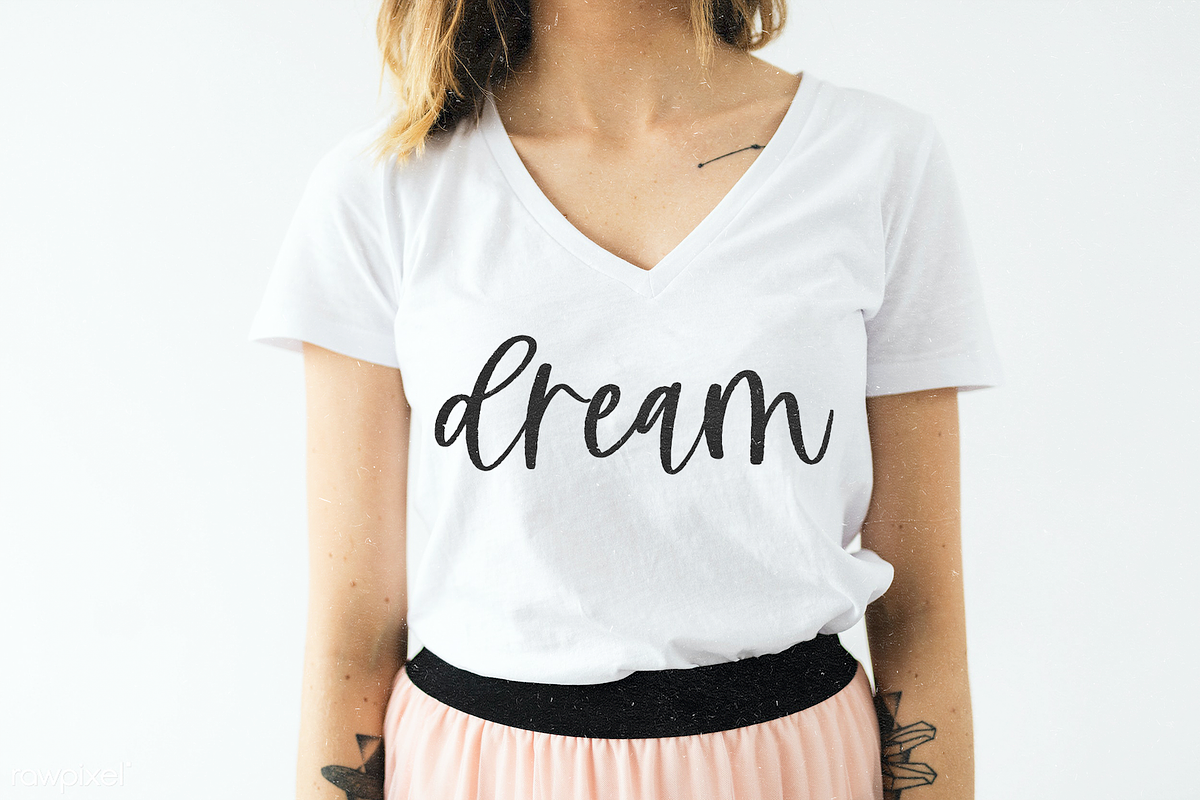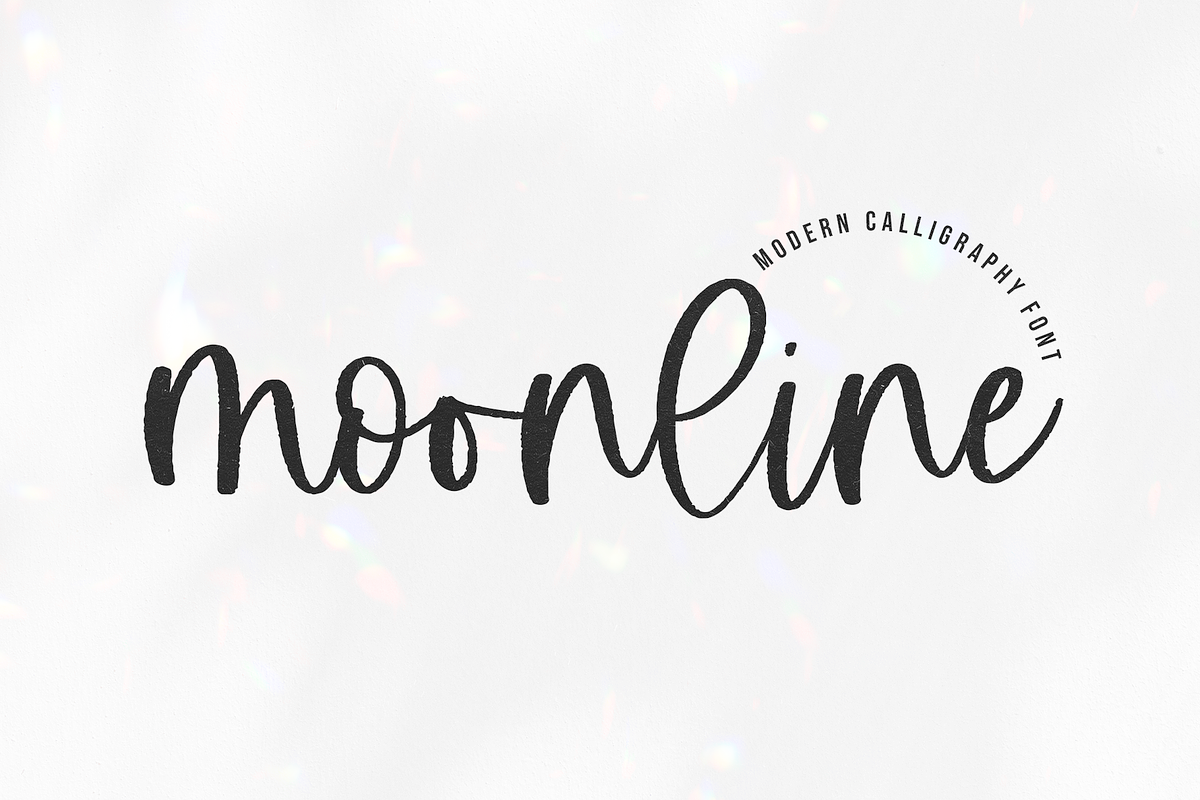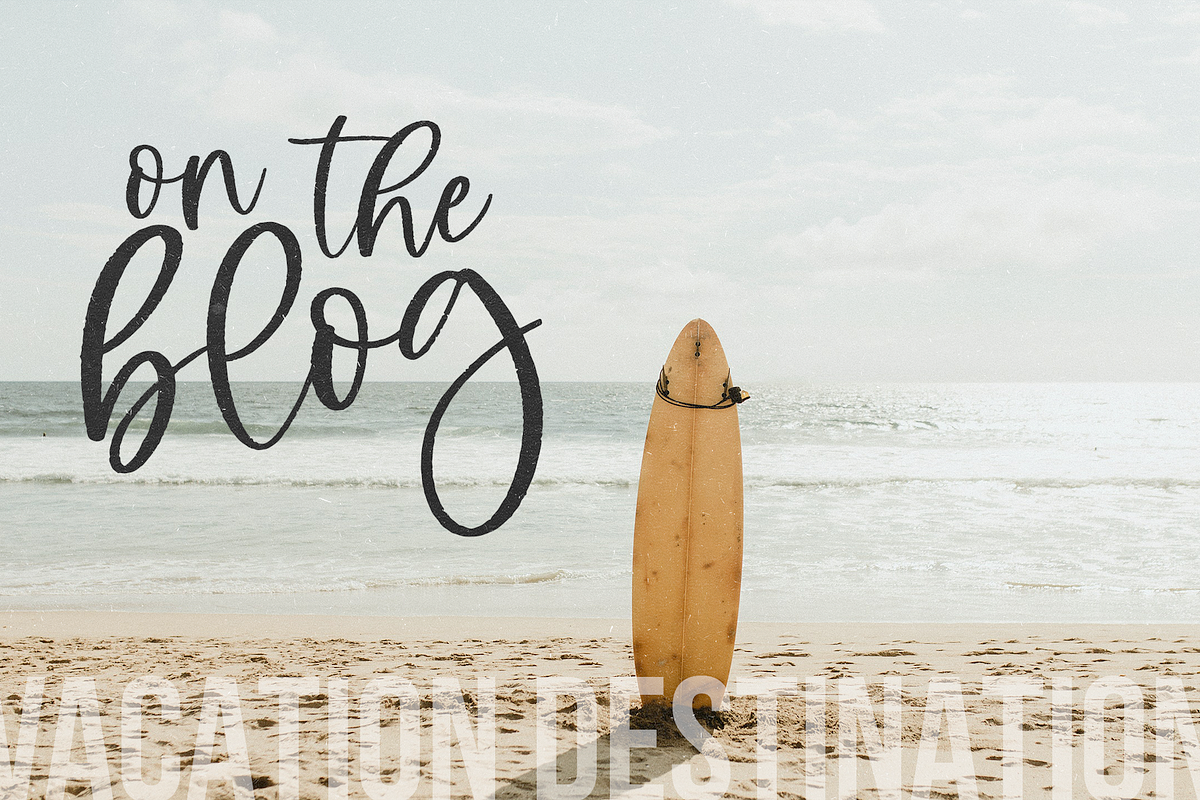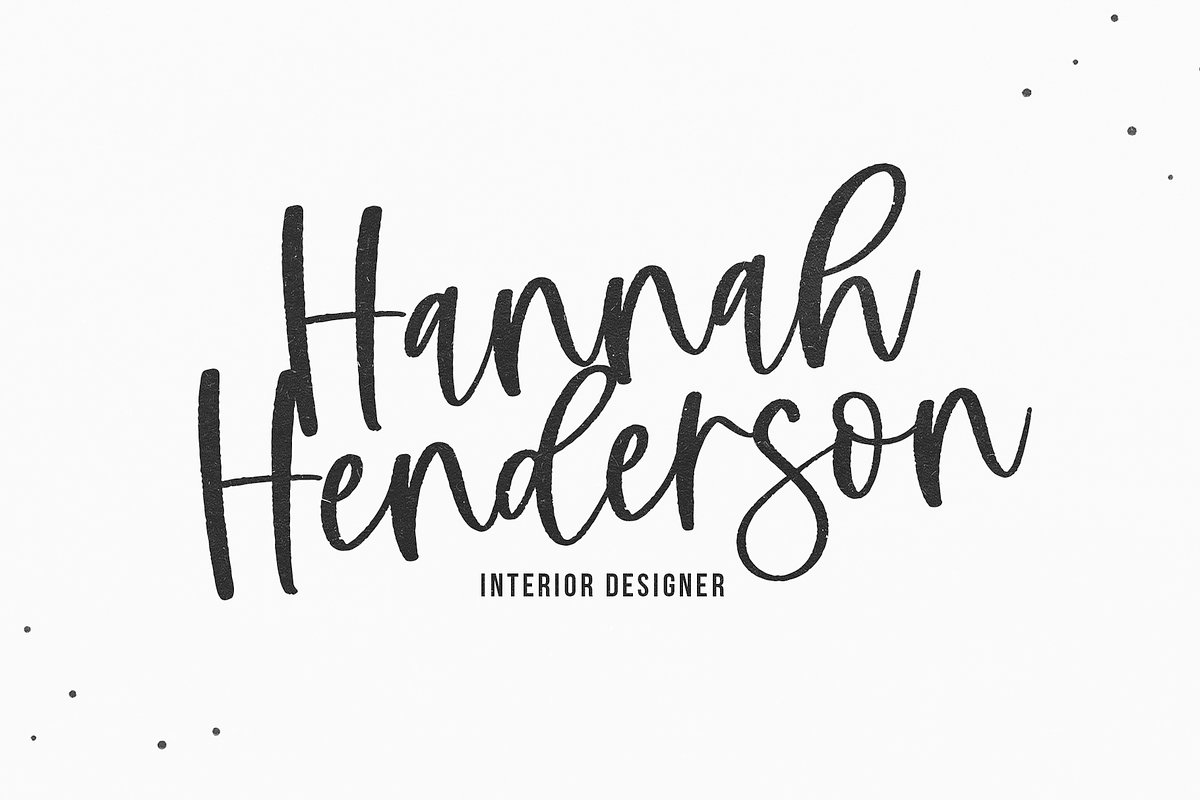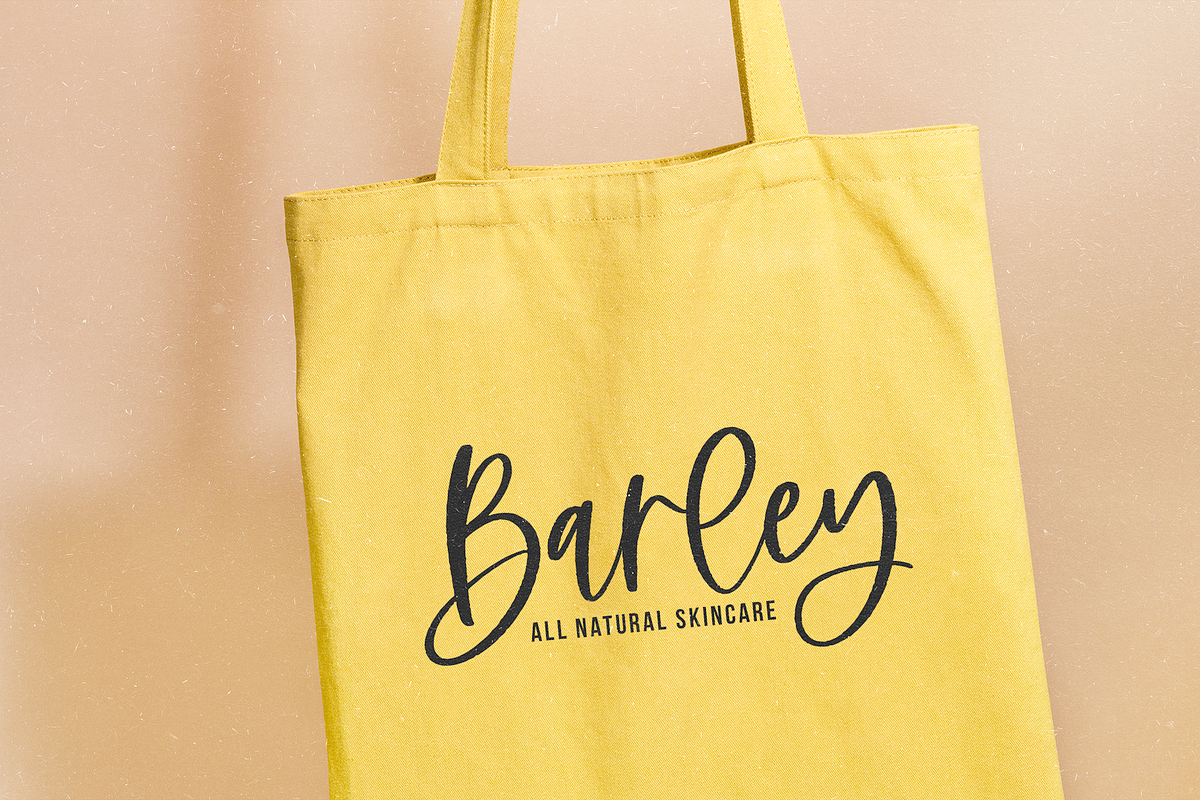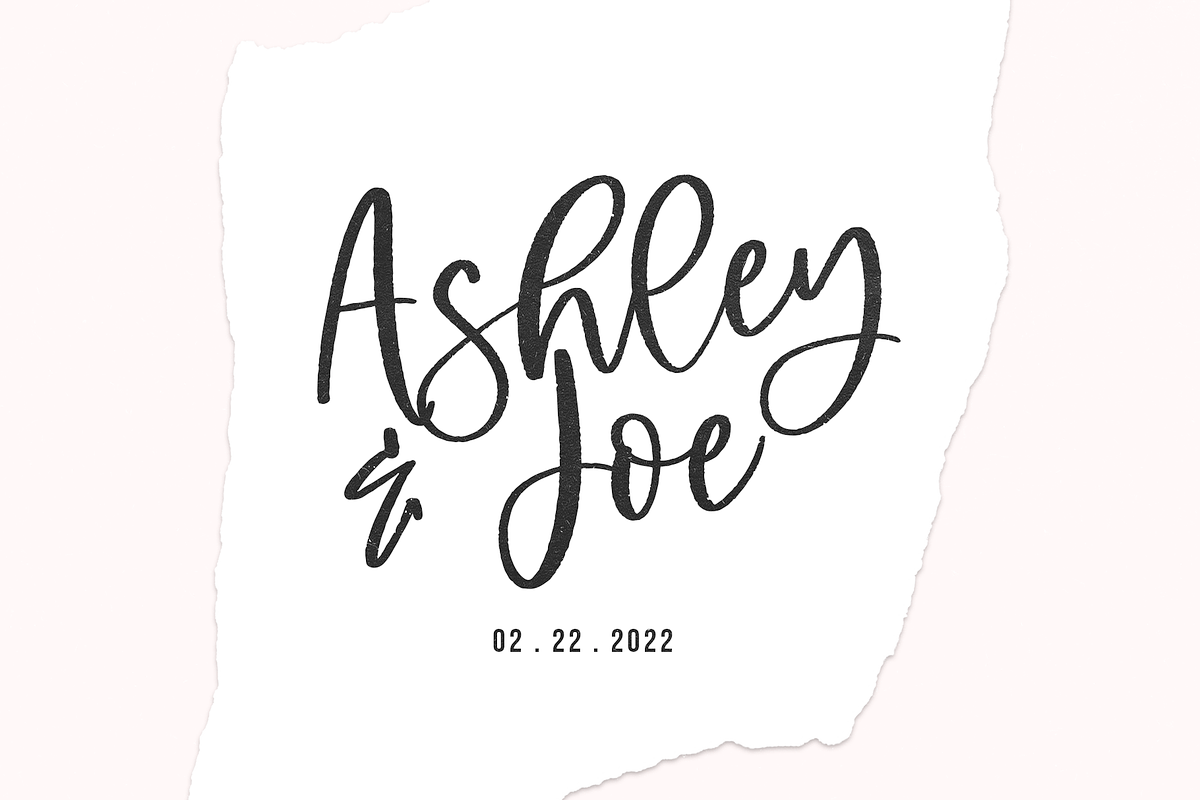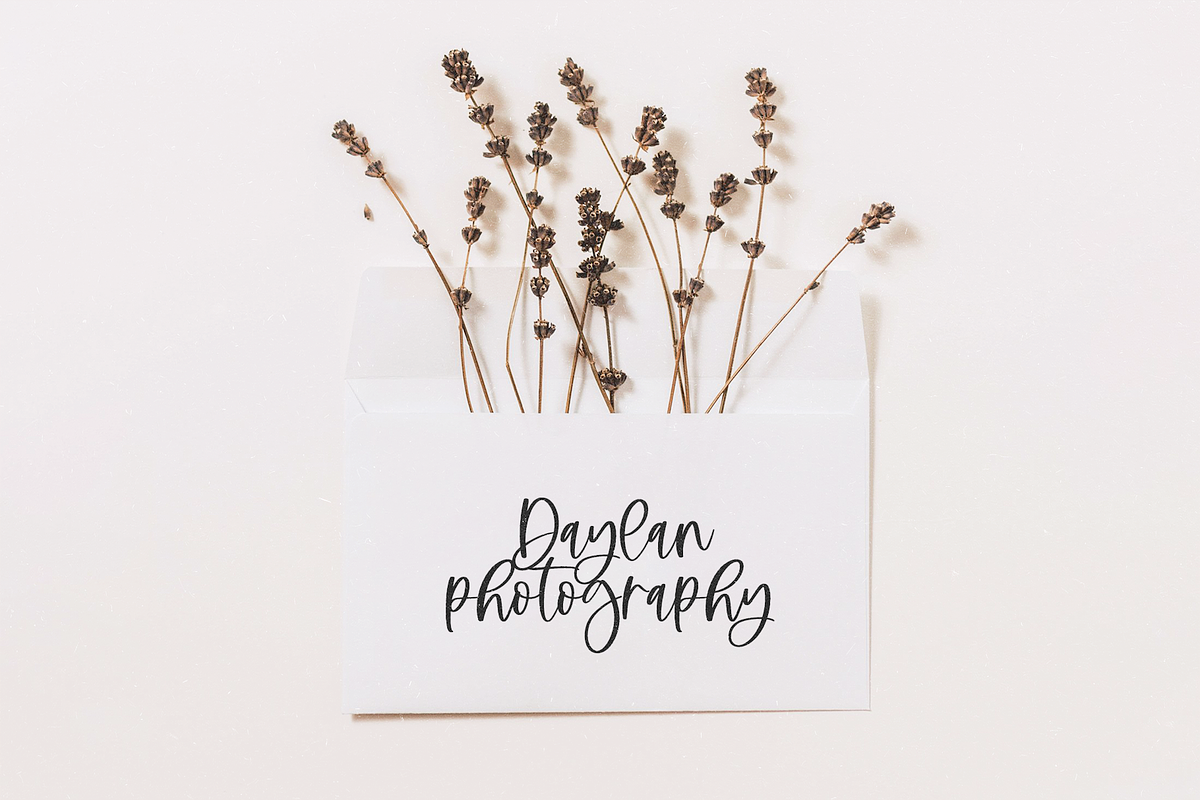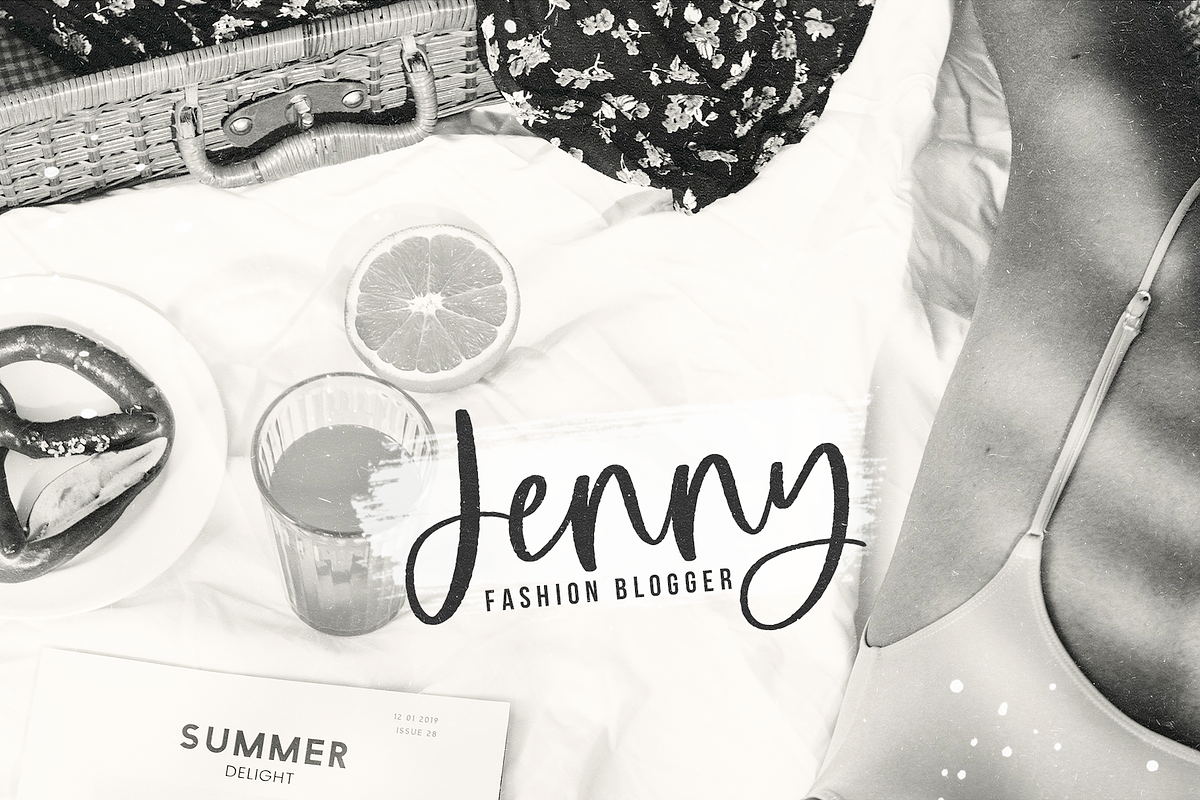
Moonline | Handwritten Script Font
Moonline is a handwritten script font with a bit of texture. It has an authentic modern calligraphy look making it perfect for branding and digital designs.
Use this font for logos, social media, websites, blogs, wedding decor, home decor, invitations, instagram, business cards, branding, and more!